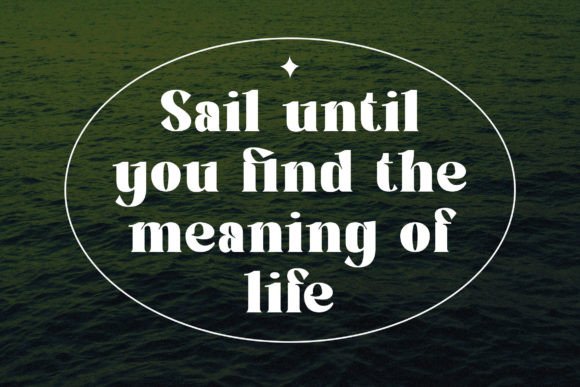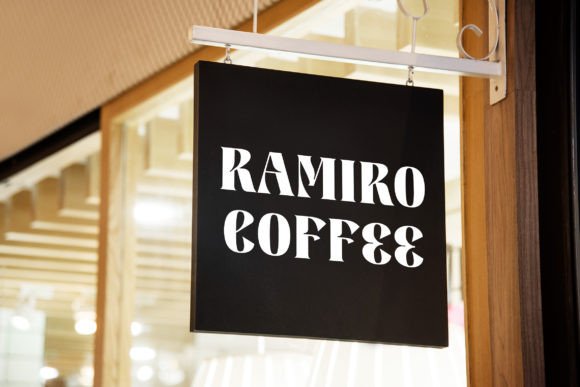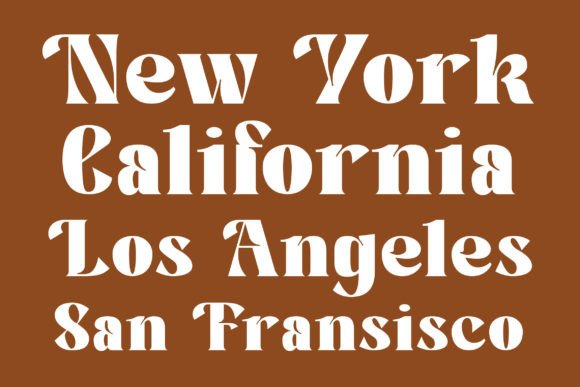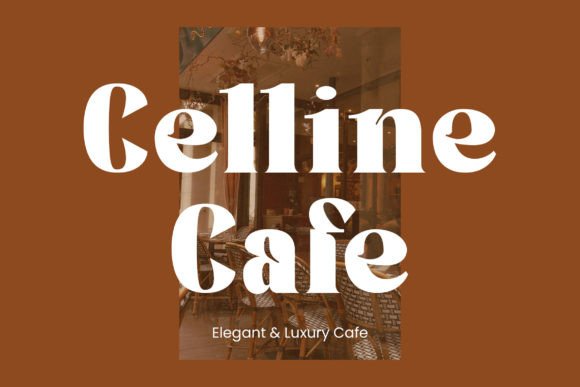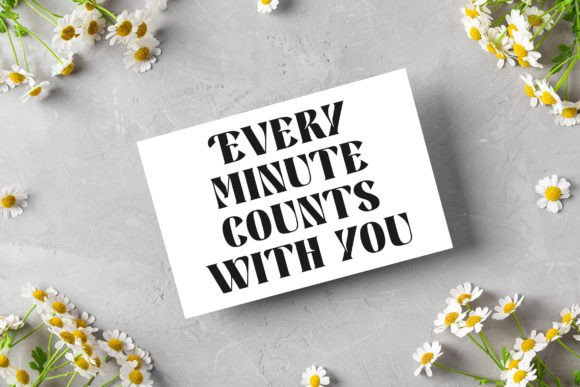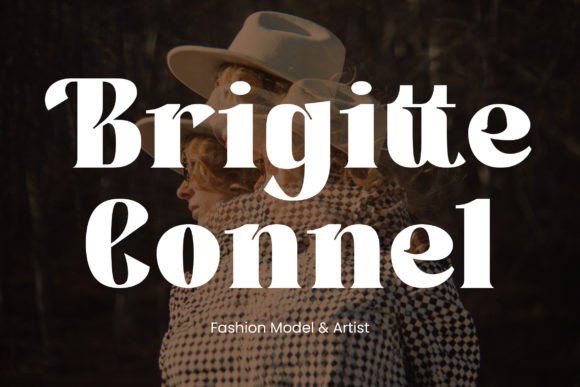
The Aesth Font: A Game-Changer for Creative Designs
I still remember the frustration of working on a project, hours spent searching for the perfect font, only to end up with something bland and uninspiring. My client wanted something bold, something that would make their brand stand out, but I was stuck in a font rut. That’s when I stumbled upon the Aesth font, and it was like a breath of fresh air. This unique display typeface has been a revelation, and I’m excited to share its story with you.
Here’s what I’m obsessed with about Aesth:
• ✨ Unconventional shapes and dynamic letterforms that command attention
• ✅ Meticulously crafted characters that convey innovation and originality
• 💥 Intricate details and unexpected twists that create a captivating visual rhythm
• 🎨 A perfect blend of sophistication and avant-garde flair
Of course, no font is perfect, and Aesth has a few quirks:
• 🤔 Limited legibility at small sizes – best used for headlines and display text
• ⚠️ Some characters may require manual kerning for optimal spacing
The Design Story Behind Aesth
Aesth was born from a passion for pushing the boundaries of typography. Its creator, a visionary designer, sought to craft a font that would inspire creativity and challenge conventional norms. With Aesth, they aimed to create a visual feast that would leave a lasting impression on anyone who experienced it.
What makes Aesth unique? Aesth’s unconventional shapes, dynamic letterforms, and intricate details set it apart from other fonts.
Is Aesth suitable for body text? No, Aesth is best used for headlines and display text due to its limited legibility at small sizes.
Does Aesth support OpenType features? Yes, Aesth is an OpenType font that supports advanced typography features, including stylistic alternates and glyphs.
Aesth is more than just a font – it’s a design statement, a conversation starter, and a bold expression of individuality. With its unique blend of sophistication and avant-garde flair, it’s the perfect choice for designers, crafters, and creative hobbyists looking to push the boundaries of typography and create something truly extraordinary.